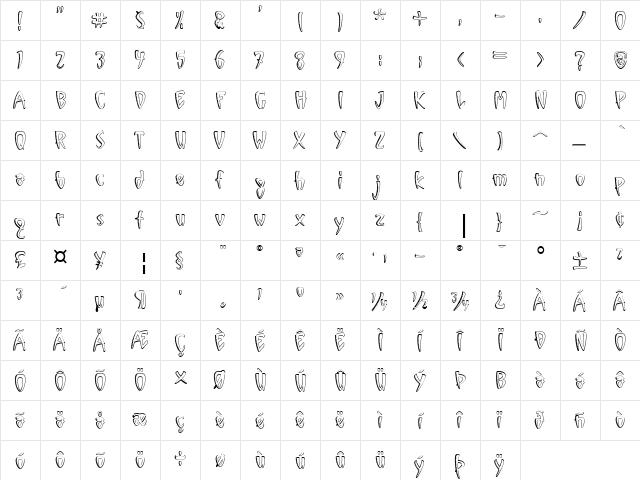
VinylSawthOut ITC Bold Font Preview
VinylSawthOut ITC Bold
VinylSawthOut ITC Bold Font Details
Design Context for VinylSawthOut ITC Typeface
VinylSawthOut ITC is a composed and adaptable typeface that performs quietly and consistently across a wide range of design contexts. Its bold stroke weight gives it real presence on the page.